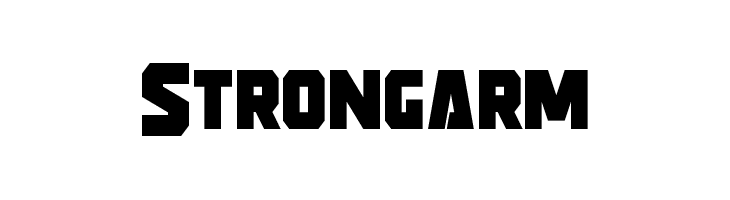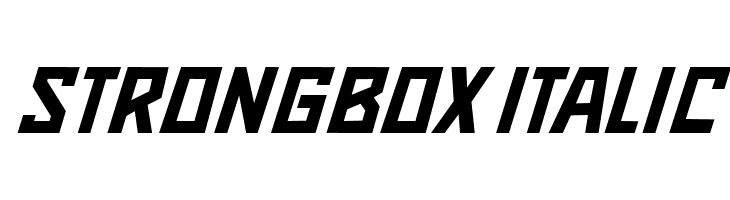
A modern, geometric sans-serif font with consistent stroke width and balanced proportions.
A playful and bold font with rounded edges and a whimsical style.
A bold, angular font with a strong, modern aesthetic.
A cursive script font with a graceful, flowing style.
A lively, handwritten font with fluid, connected letters and a playful yet sophisticated style.
A bold, geometric font with a modern and assertive style.
A bold, geometric font with strong lines and a modern aesthetic.
A modern, geometric font with clean lines and a distinct angular design.
A bold, geometric font with strong, angular lines and a modern aesthetic.